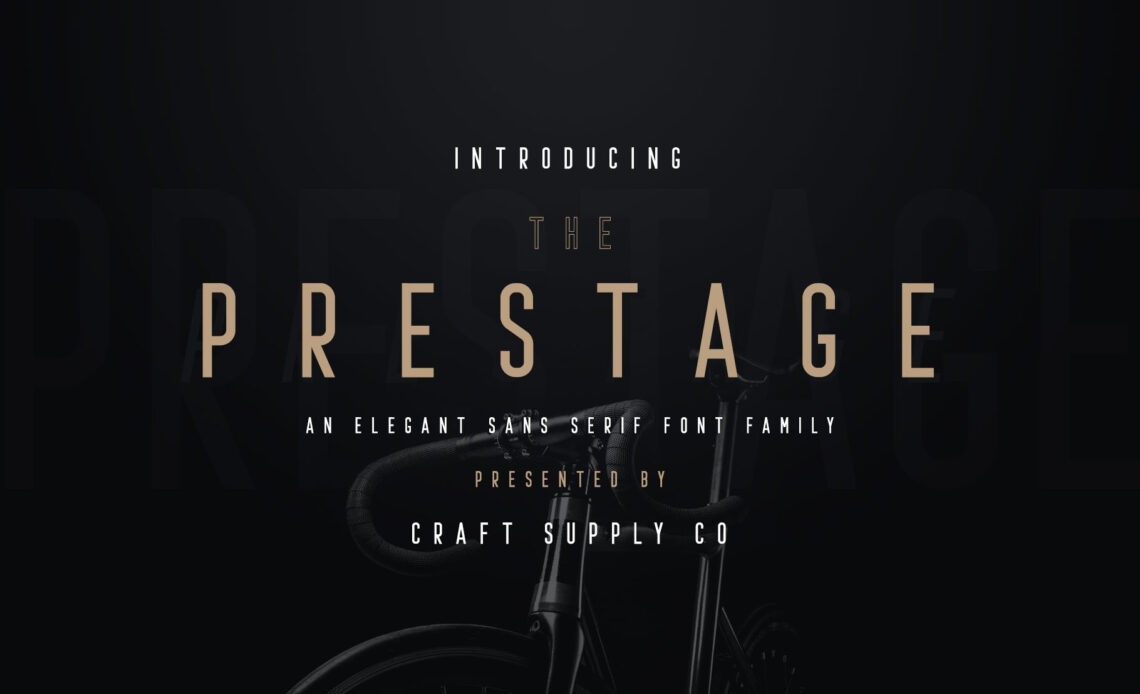
Prestage Font
Introducing Prestage, a remarkable sans serif font family crafted by craftsupplyco, brimming with style and versatility. This meticulously designed typeface exudes elegance and boldness, presenting a solid and outlined duo that will elevate your creative projects to new heights.
Prestage's condensed vibe, achieved through a balance of compactness and style, lends itself flawlessly to various design applications. Its modern aesthetic and captivating presence make it an ideal choice for contemporary and cutting-edge designs. Whether you're working on branding, logos, headlines, posters, or any digital medium, Prestage will undoubtedly leave a lasting impression.
With Prestage as your design partner, you'll find endless possibilities for creative expression. Its solid form exudes strength and stability, while its outlined counterpart adds a touch of playfulness and intrigue. Mix and match these options to create visually striking combinations that resonate with your unique brand personality.
Embrace the power of Prestage, the font that embodies sophistication and versatility like no other. Let its bold lines and condensed structure captivate your audience, leaving them with a lasting impression that reflects the essence of your brand.